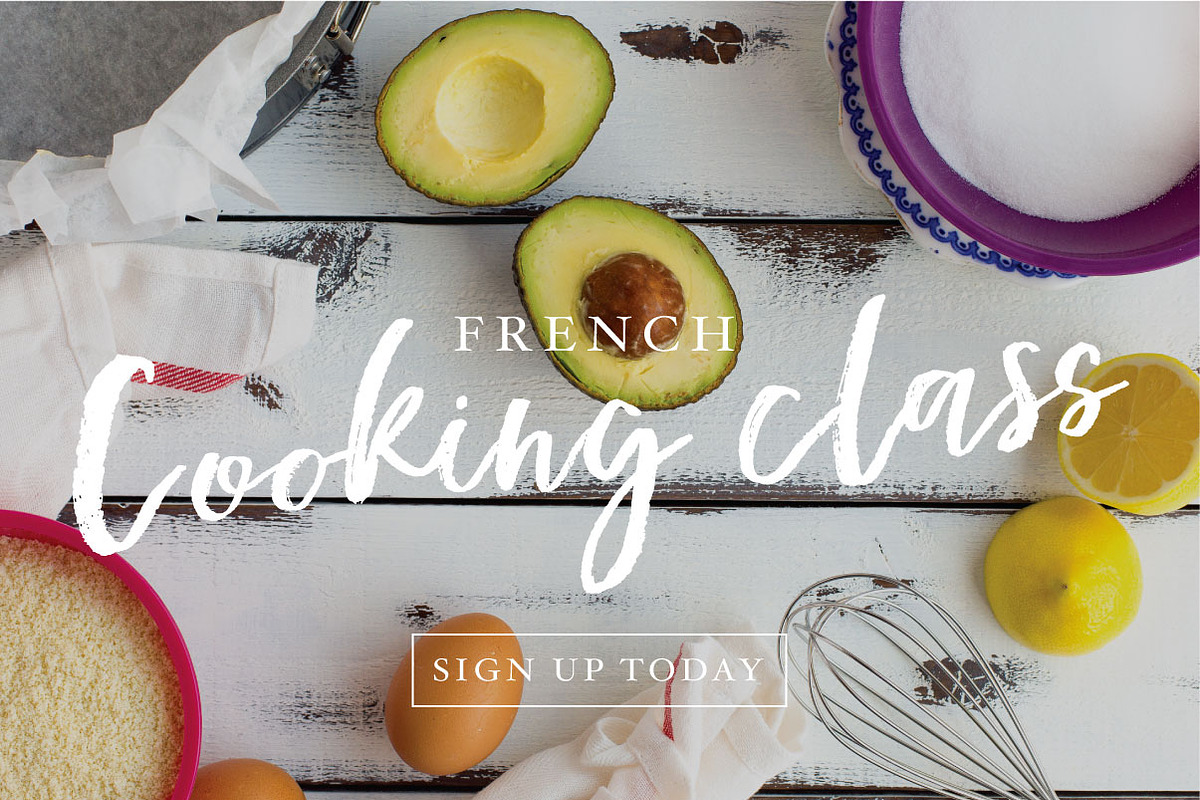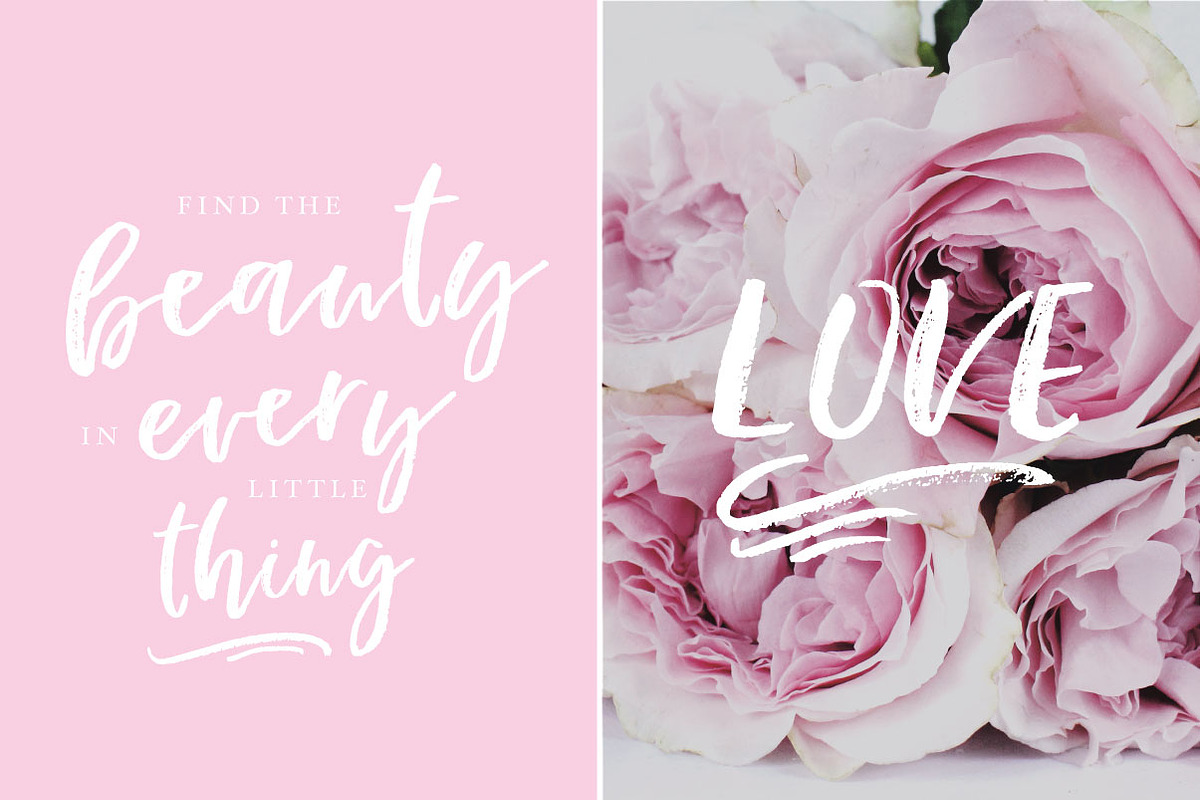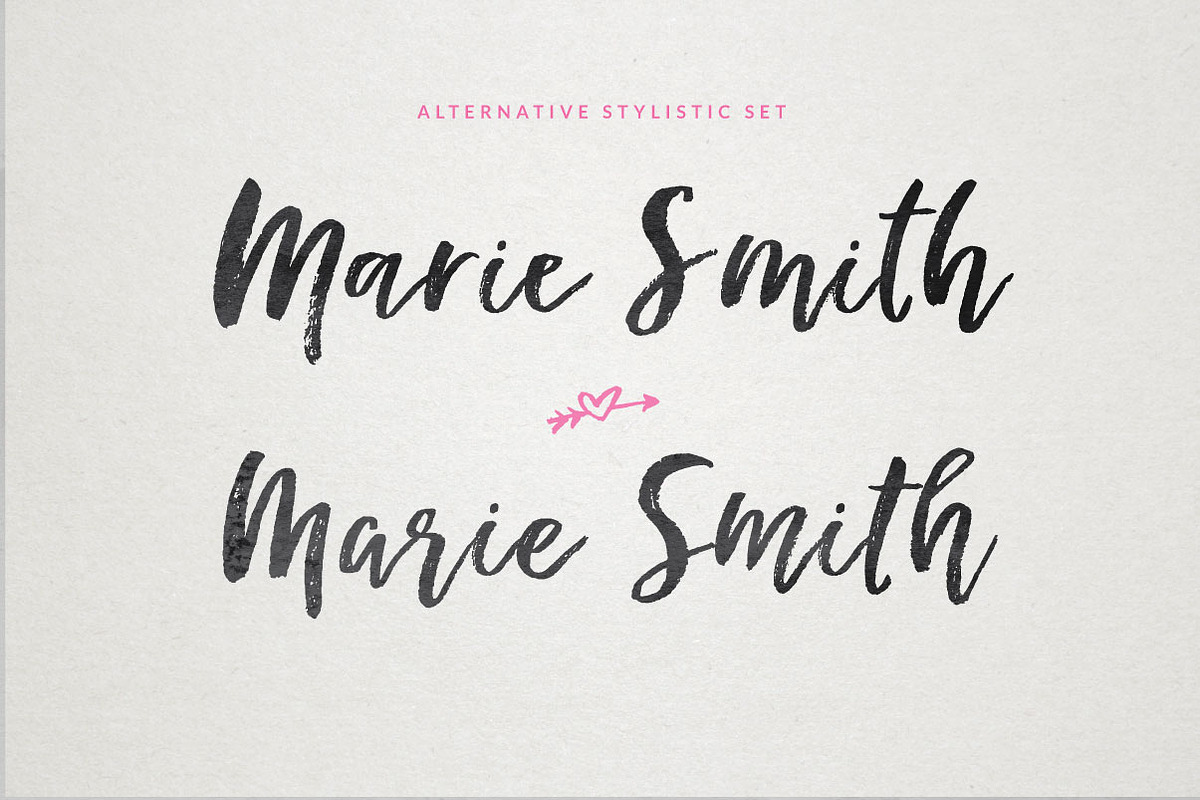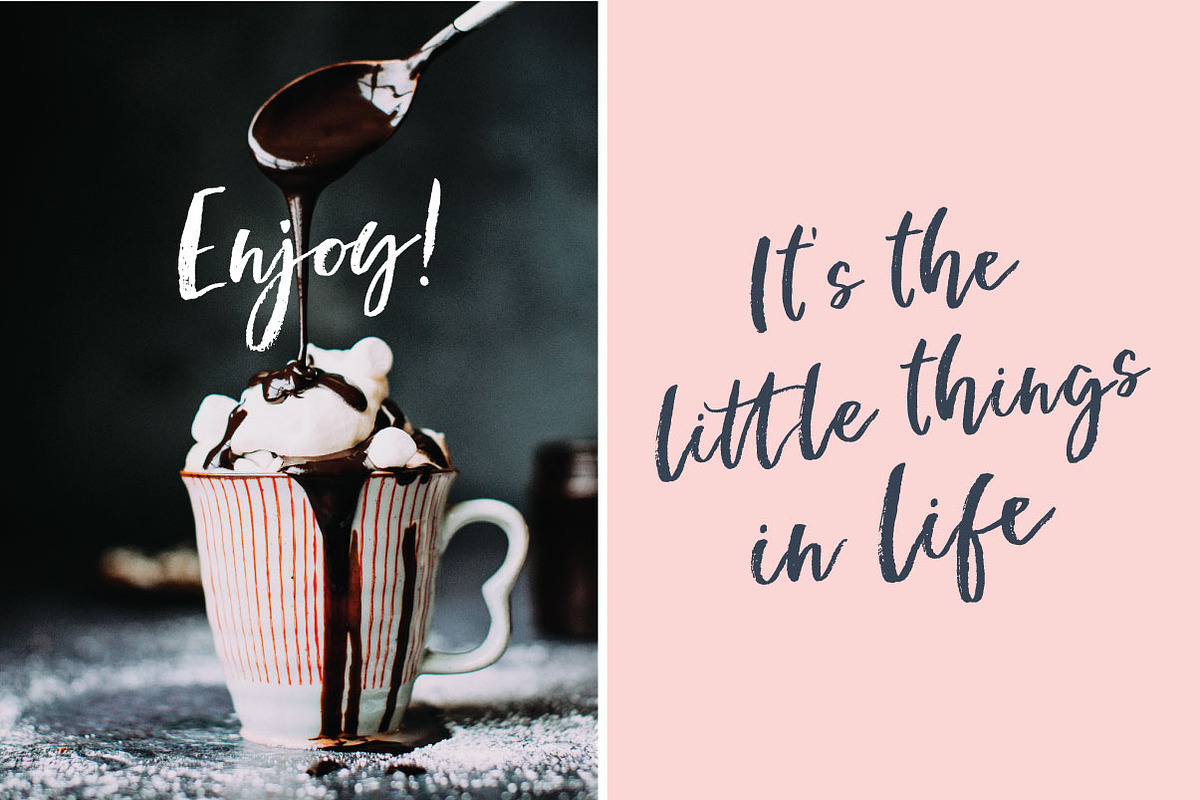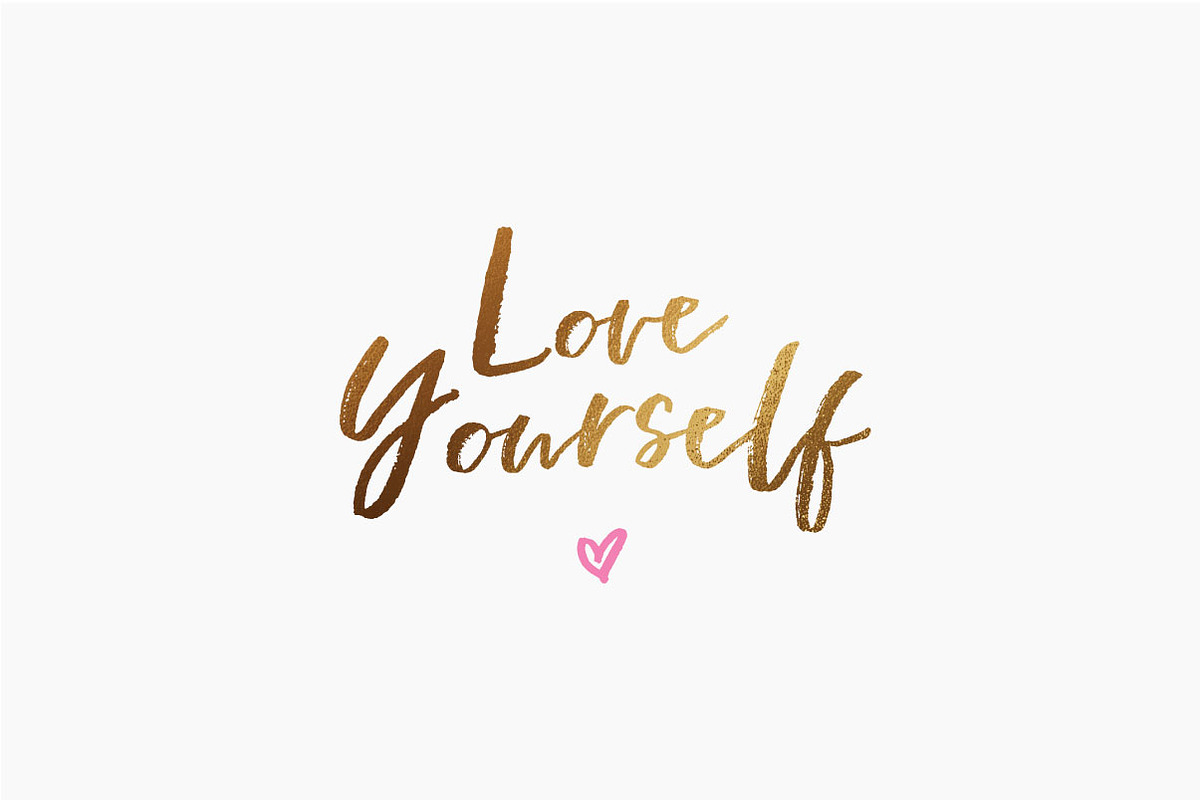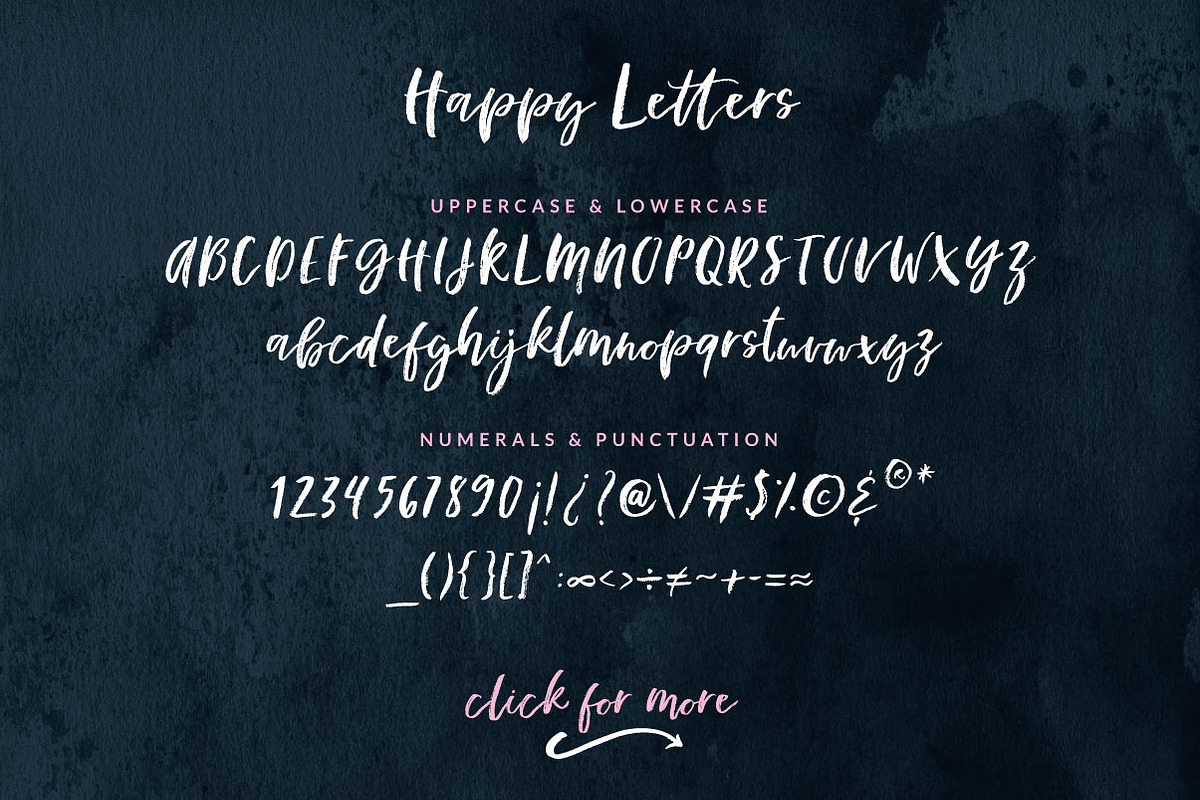
Happy Letters Brush Script font
Happy Letters Brush Script font by Creator Goodies is a font selected for branding, posters, packaging, typography.
- This font is composed by 2 different styles: Happy Letters Script including a Stylistic set if you want to change a letter or capital on any
Why Happy Letters Brush Script font is worth a look
Happy Letters Brush Script font by Creator Goodies fits naturally into Branding, posters, packaging, typography.